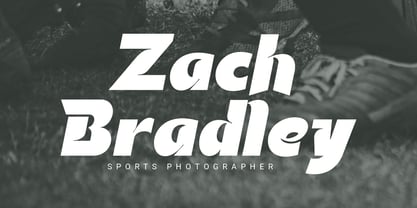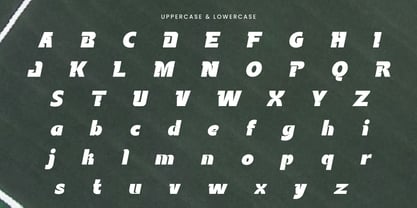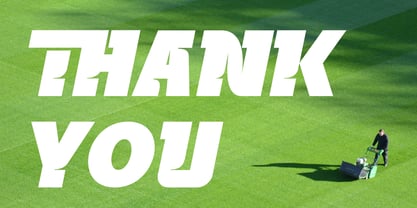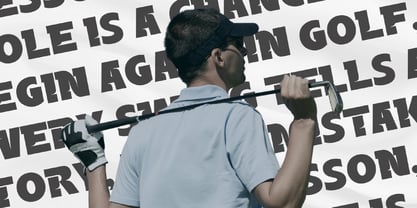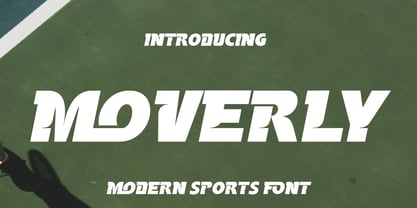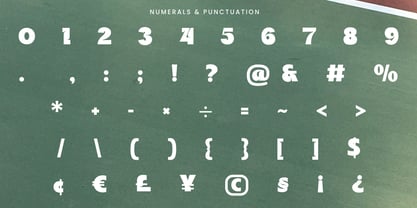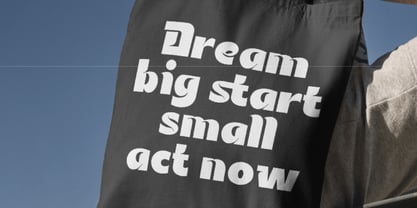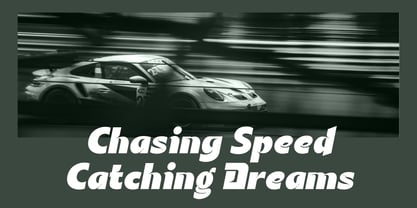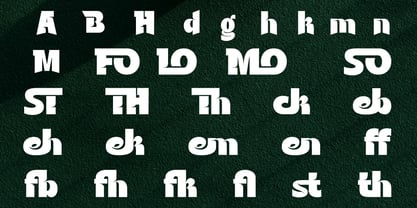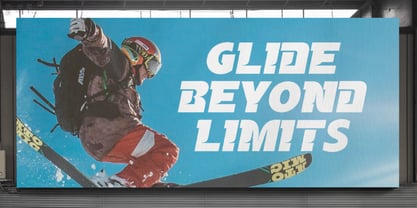
Movery
by Rvandtype
Designed with striking dynamism, this contemporary, bold sports font expertly marries robust strokes with razor-sharp angles to exude a deeply athletic aura. Its muscular design harnesses energy, making it an impeccable choice for sports branding, event posters, and social media graphics. With a striking aesthetic, this modern sports font ensures high visibility, even in the smallest sizes, offering unmatched readability. A perfect blend of power and style, it is adept for all applications from logos to titles and more. With an aesthetic that communicates a sense of speed and strength, it is especially ideal for active lifestyles, fitness, and racing themes.
Designers: Randi Irvan
Foundry: Rvandtype